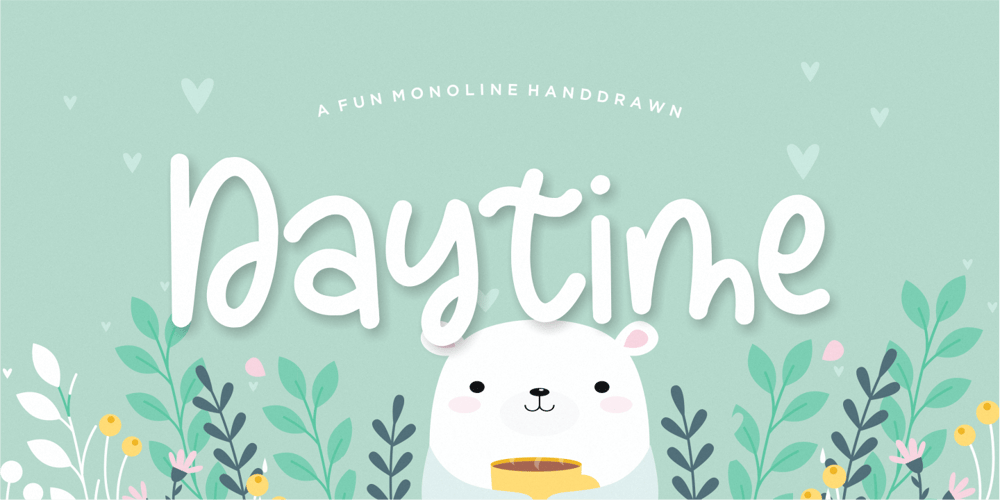
Daytime
Daytime font
Daytime Font Family was designed by Restu Angga and published by Balpirick. Daytime contains 1 styles and family package options. Proudly Present, Daytime Font.Daytime is a Fun Monoline Handdrawn Font.Daytime is perfect for product packaging, branding project, megazine, social media, wedding, or just used to express words above the background.This font includes TTF and OTF, Daytime also multilingual support.Enjoy the font, feel free to comment or feedback, send me PM or email.Thank you!